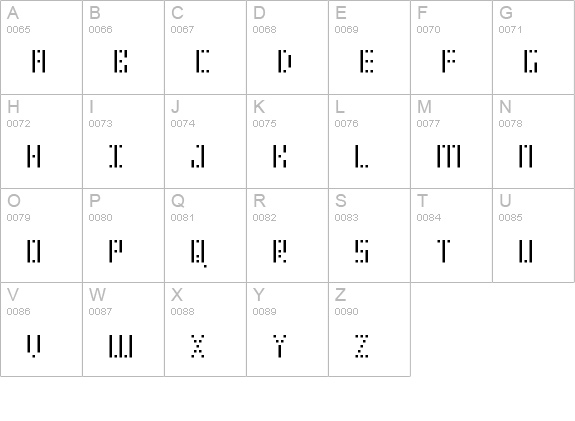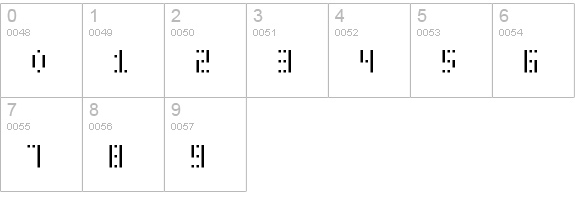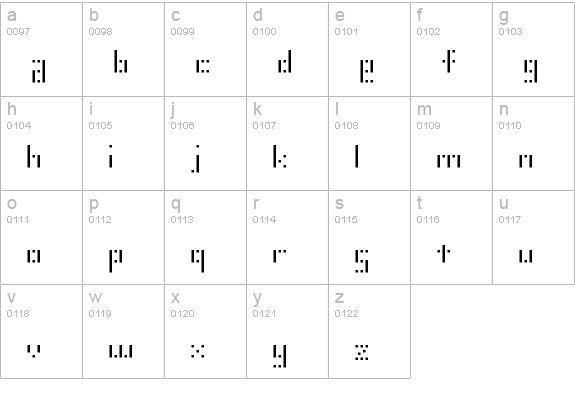
SMdot12y Font Details
Introducing SMdot12y, a captivating font that will bring a touch of elegance and sophistication to your designs. This stunning typeface combines modernity with a hint of vintage charm, making it perfect for a wide range of creative projects. SMdot12y features clean lines and well-defined characters that exude a sense of professionalism and clarity. Its unique design is sure to grab attention and make a lasting impression on your audience. What sets SMdot12y apart is not only its impeccable style but also its accessibility. This incredible font is available to download for free at FontsMarket.com. Yes, you read that right - freely available! Now you can enhance your designs without breaking the bank. Whether you're working on a logo, website, poster, or any other design project, SMdot12y will effortlessly elevate your work to new heights. Its versatility allows it to be used in various contexts, from corporate branding to personal creative endeavors. With SMdot12y, you can create eye-catching headlines, stylish typography, and captivating visuals that will leave a lasting impression. Its versatility and timeless appeal make it a must-have in any designer's toolkit. Don't miss out on this amazing opportunity to enhance your designs with the remarkable SMdot12y font. Download it for free at FontsMarket.com and unlock a world of creative possibilities today!